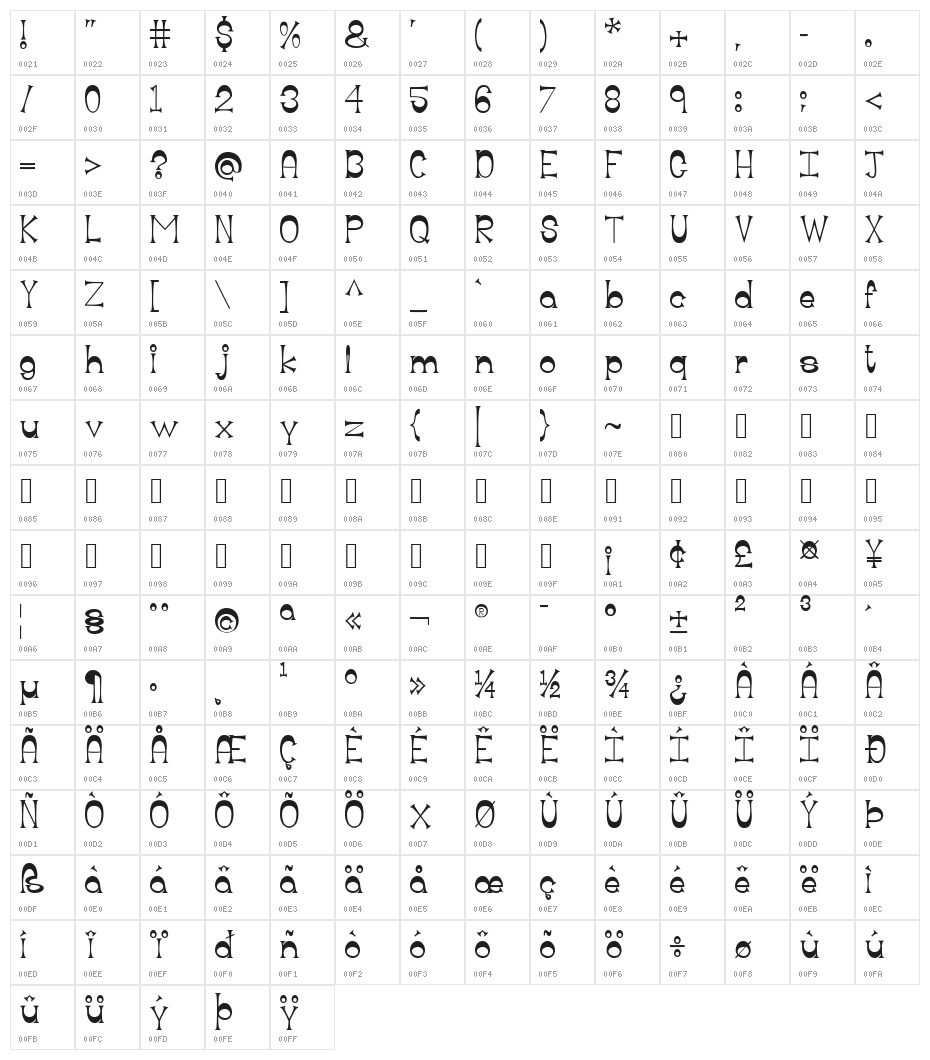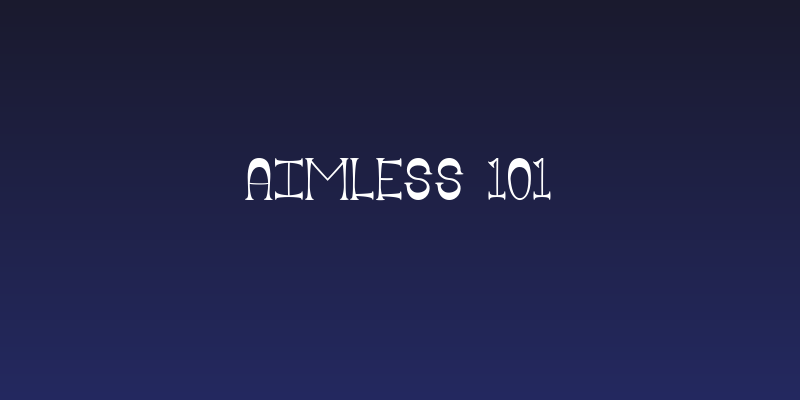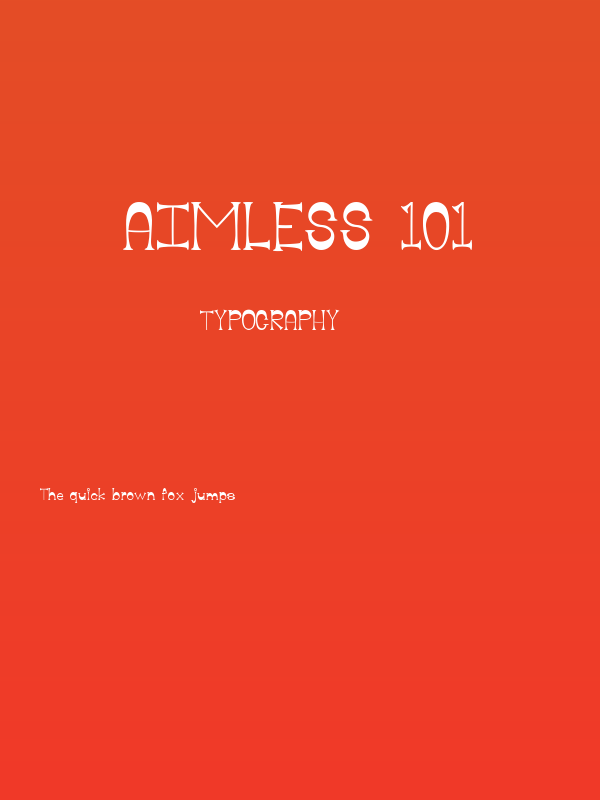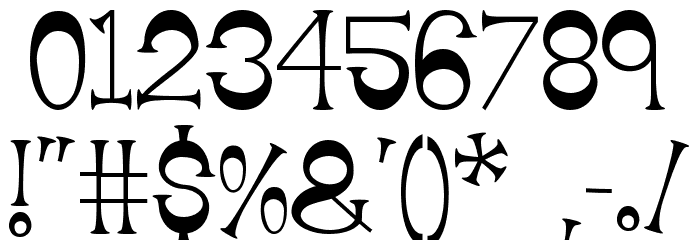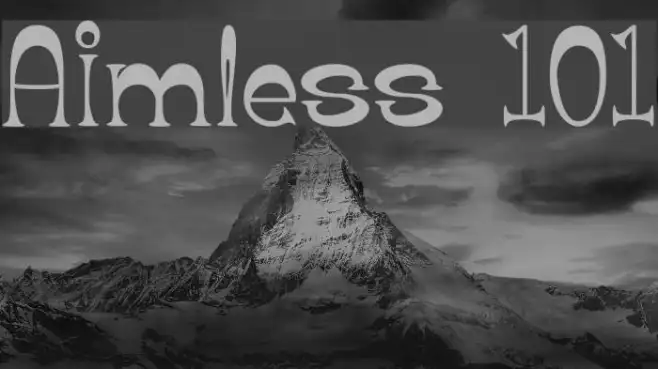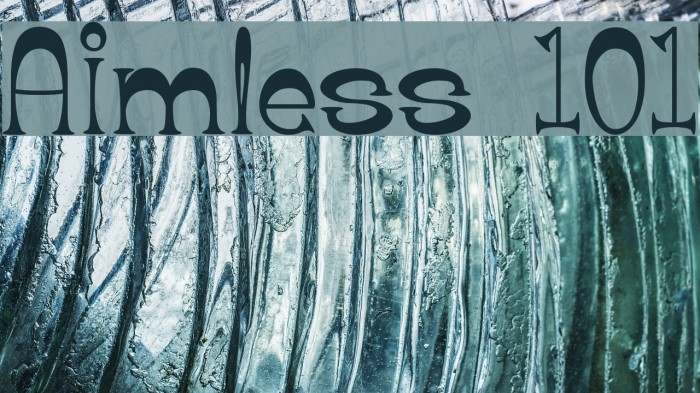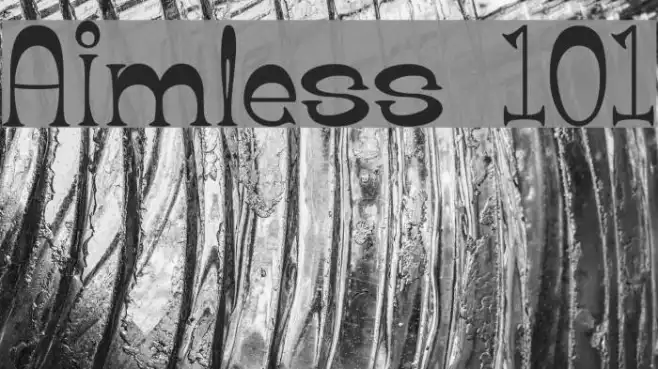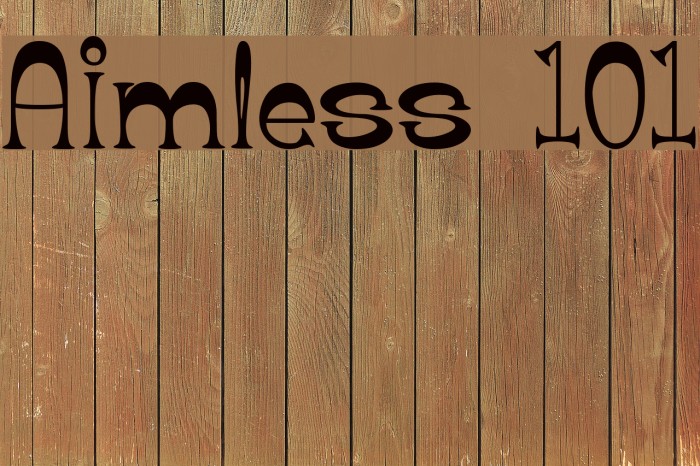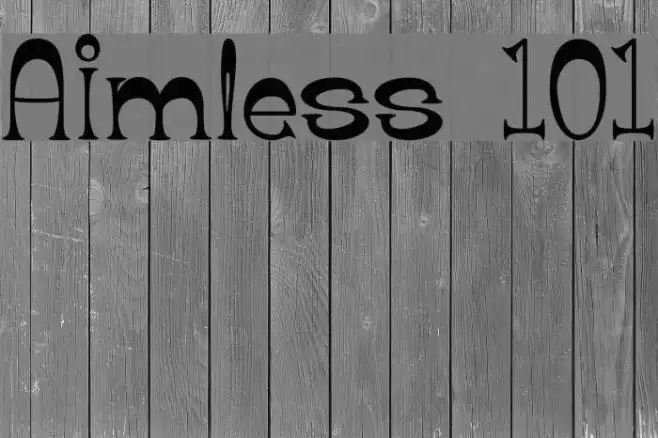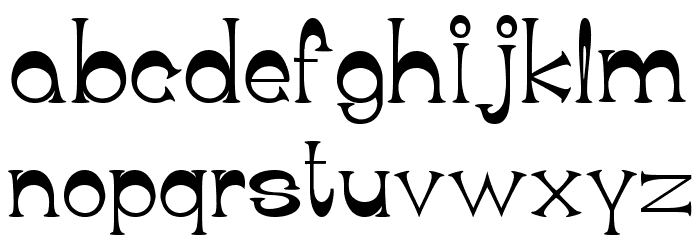
Aimless 101 Font
Aimless 101 Description
This font features a playful and whimsical design with exaggerated serifs and unique character shapes. The uppercase letters have a distinct flair, with some characters featuring elongated strokes and others having a more compact form. The lowercase letters maintain a consistent style, with rounded edges and a slightly uneven baseline that adds to the font's quirky charm. Numbers and special characters are designed to match the overall playful aesthetic, making this font suitable for creative and informal applications. The font's distinctive style makes it stand out, adding a touch of personality to any project.
| Proposed Projects | Ideal for children's books, playful branding, creative posters, and whimsical invitations. |